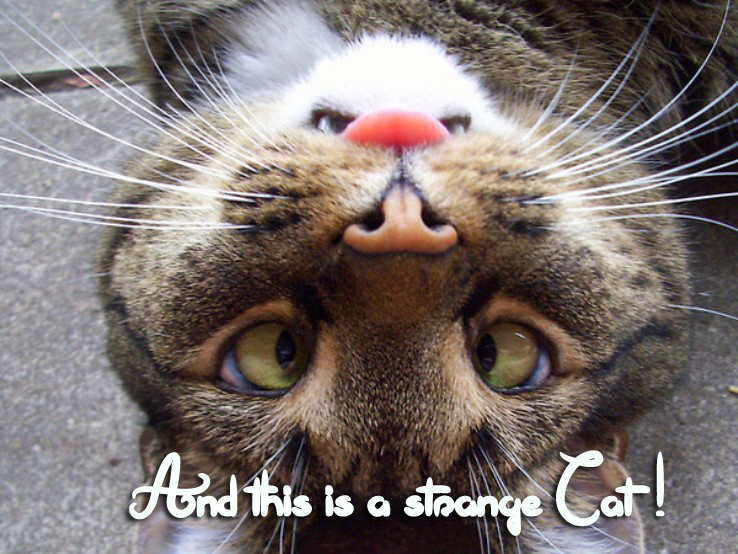
This is not a Font offers free handwritten lettering with oversized loops, abrupt weight changes, and the exaggerated sweep of emphatic, confident signatures drawn at speed. Tall strokes rise far above the line, rounded forms press closely together, and long crossbars thread through neighboring letters to form a dense, restless silhouette across the page.
Fashion, nightlife, and independent music match its quick, personal attitude, making it useful for boutique branding, album cover artwork, concert event posters, and expressive product packaging. The sweeping crossbars echo autographs and marker flourishes, a useful motif for fashion and music graphics.
This is not a font